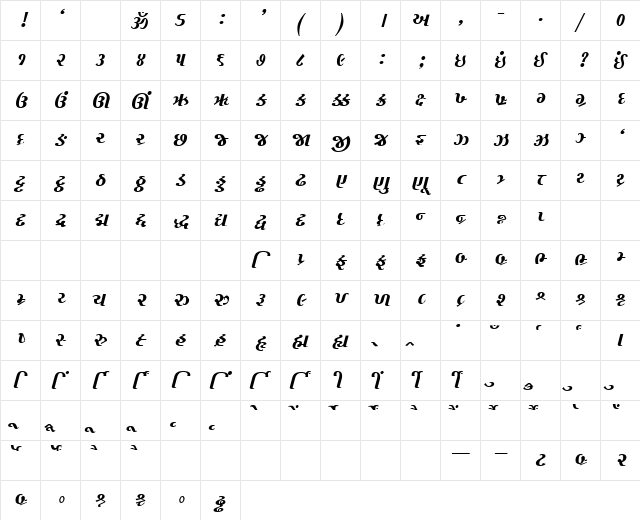
AkrutiGujChandan Bold
Design Context for AkrutiGujChandan Typeface
AkrutiGujChandan flows with the natural rhythm of handwritten lettering, making it ideal for designs that call for warmth and personal expression. Its bold stroke weight gives it real presence on the page.
Font Pairing: Combine AkrutiGujChandan with a simple geometric sans for maximum contrast — the tension between flowing curves and clean structure is a classic typographic pairing.
Pro Tip: Pair AkrutiGujChandan with a clean sans-serif for supporting text. The contrast between fluid script and geometric structure creates an elegant typographic hierarchy.